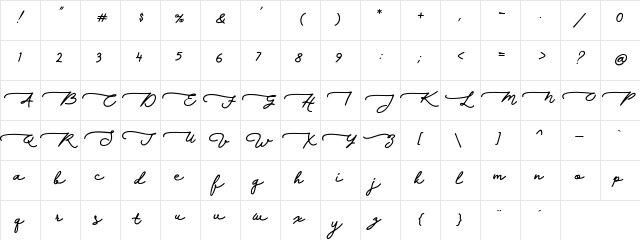
Walfords Regular
Design Context for Walfords Typeface
Walfords is a composed and adaptable typeface that performs quietly and consistently across a wide range of design contexts.